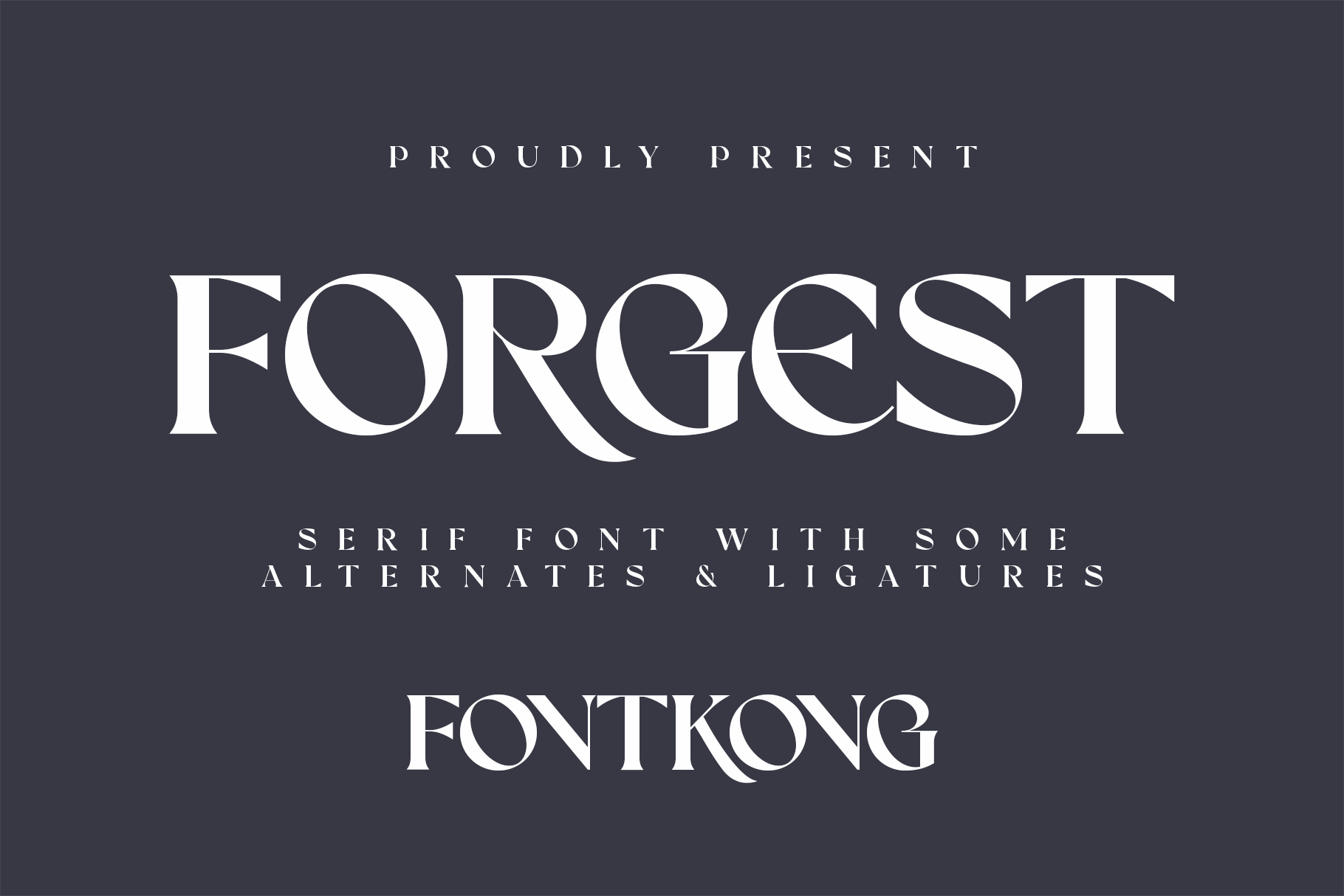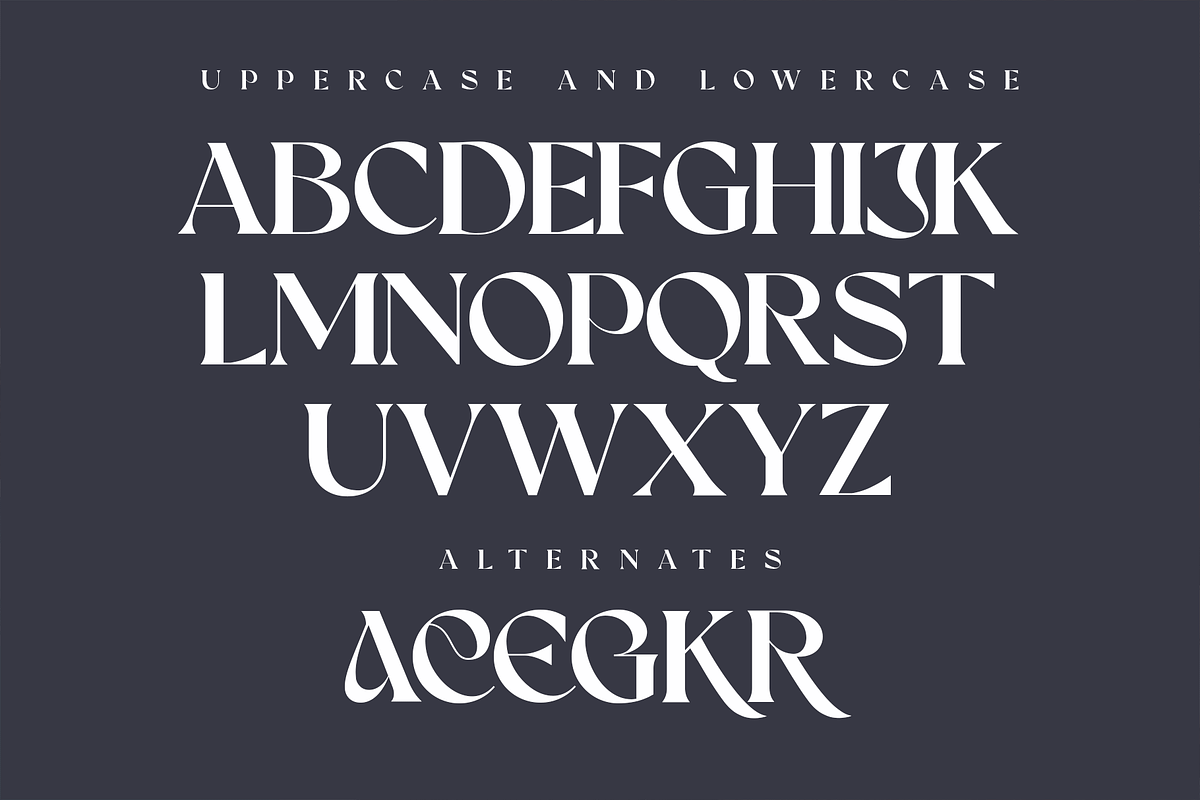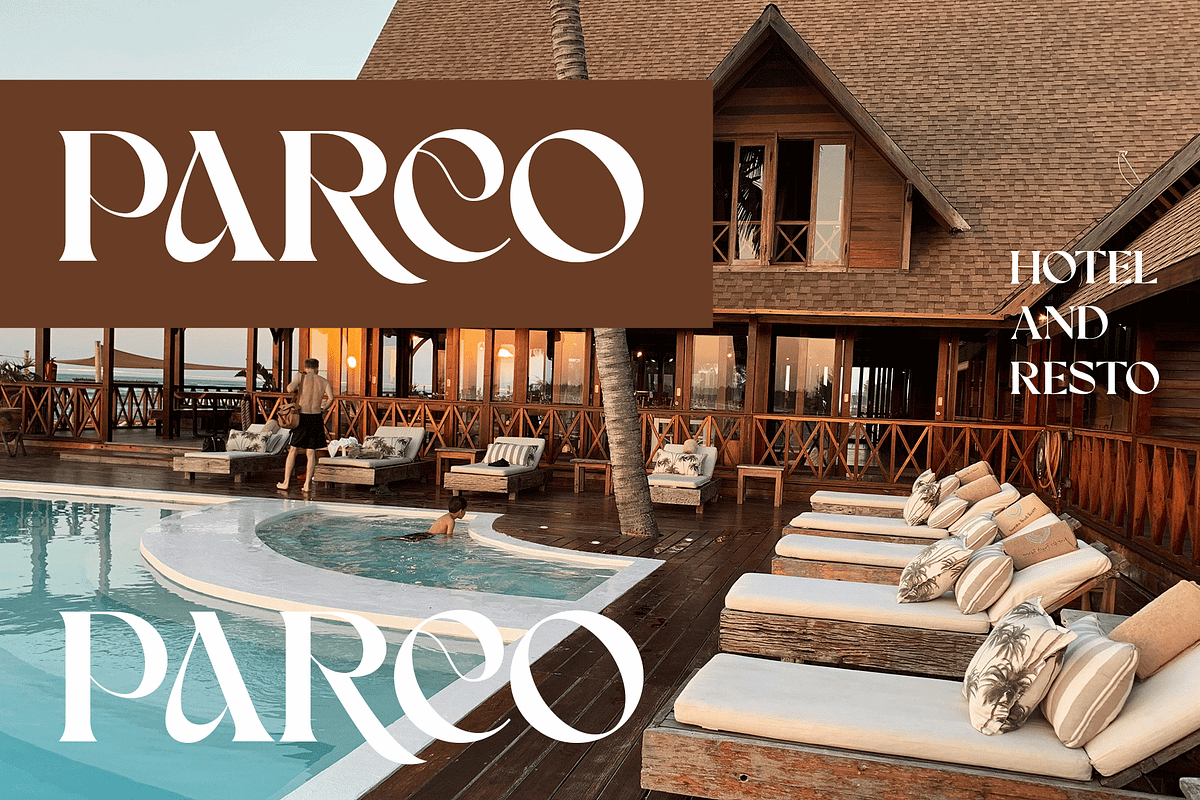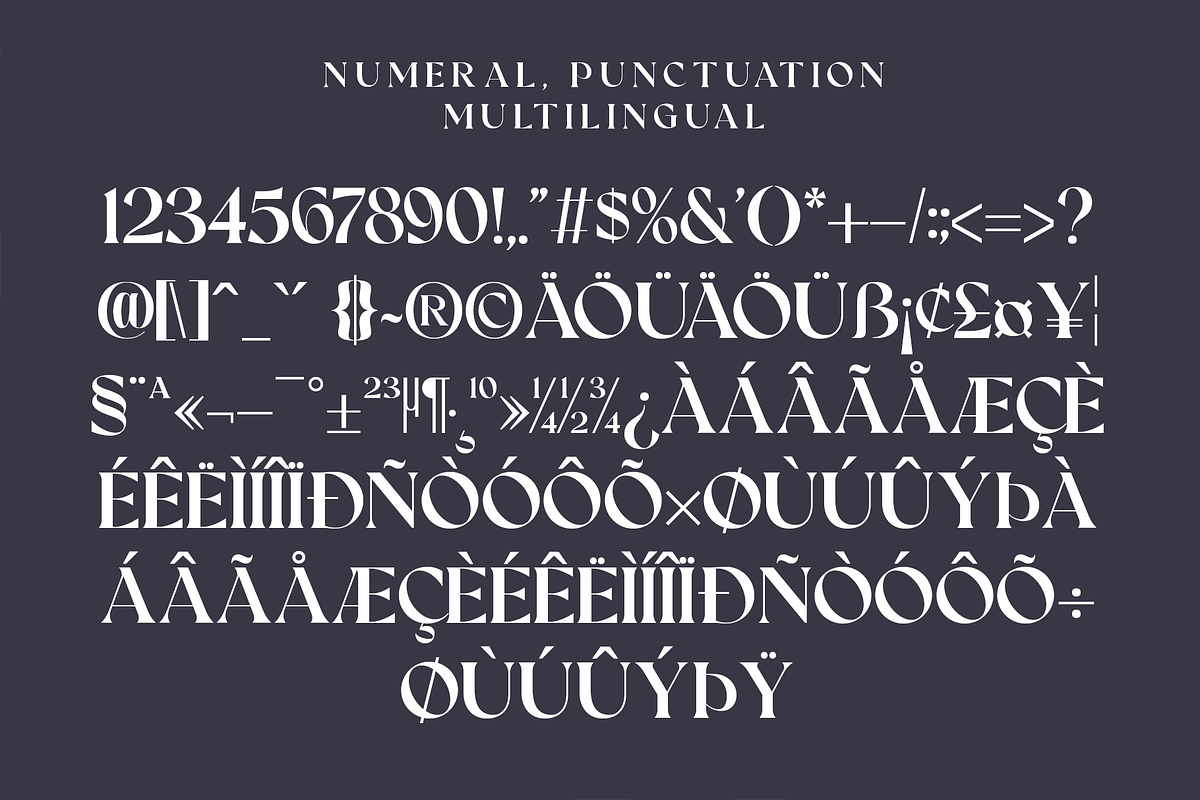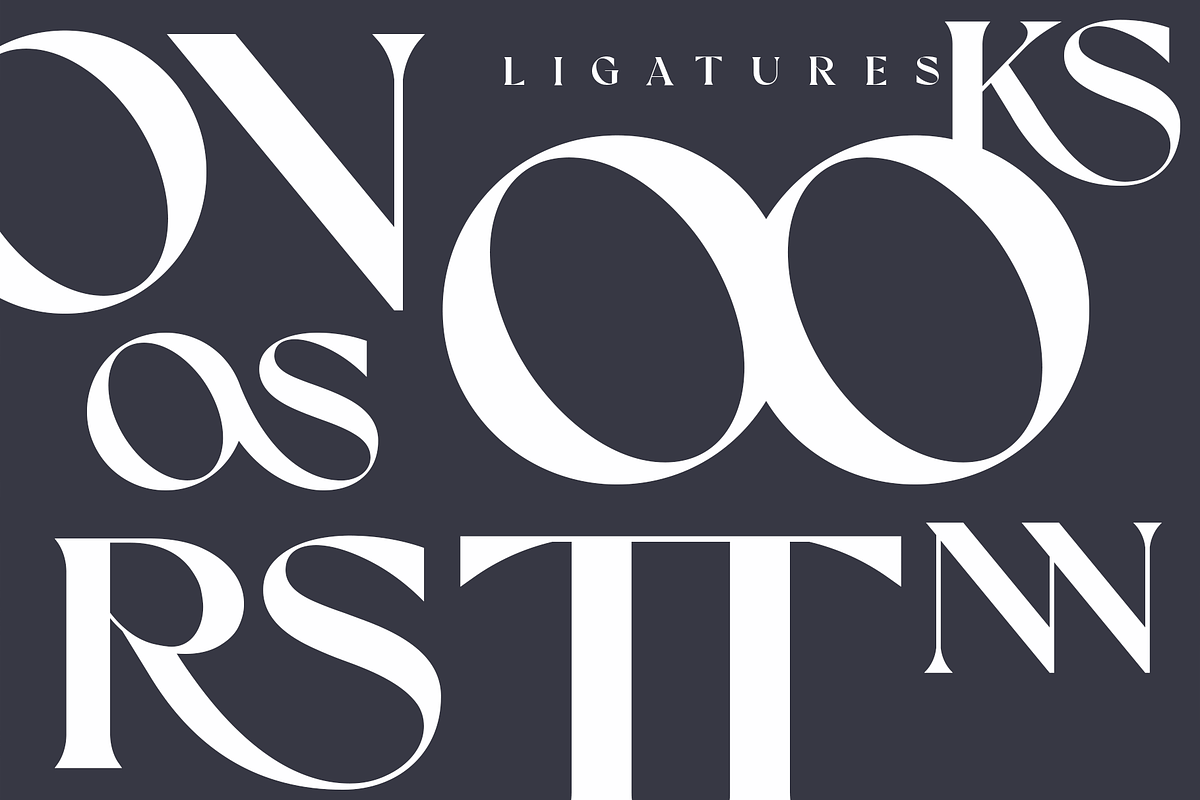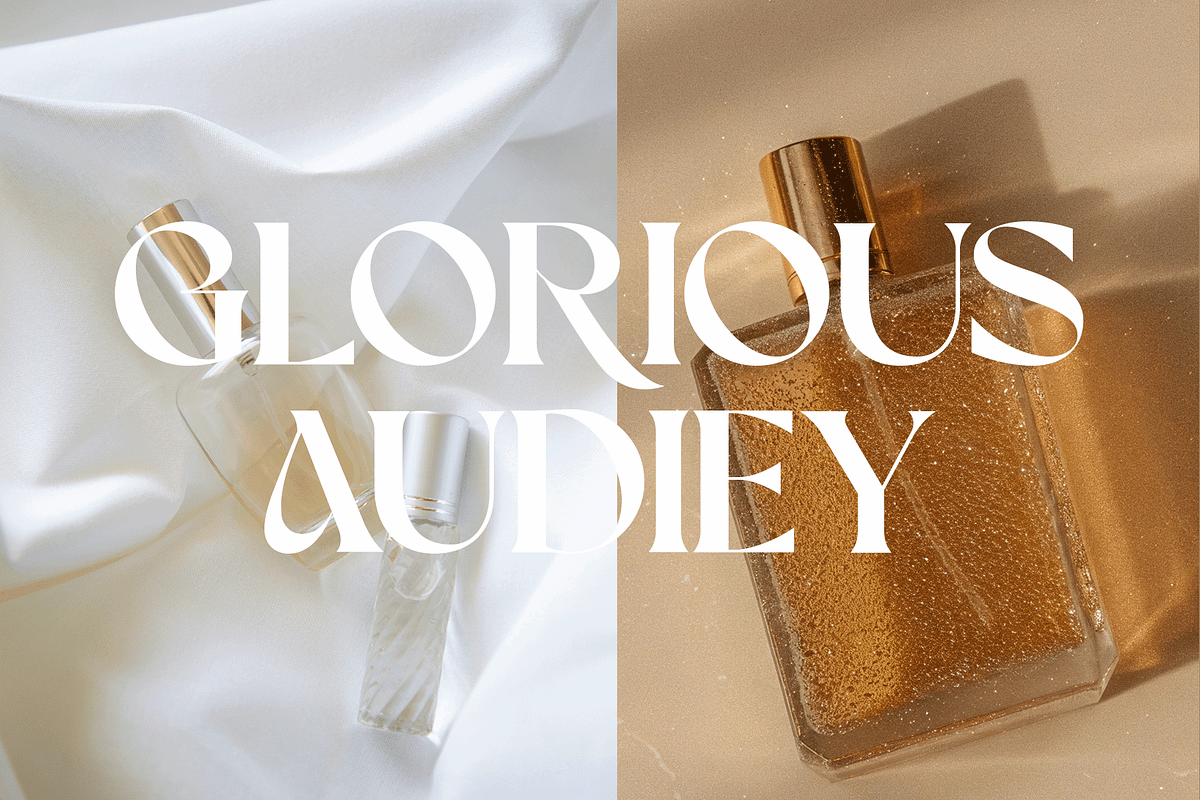
Forgest – Bold Serif Typeface
Introducing Forgest, a bold serif font designed to make a powerful impression. Forgest blends traditional serif aesthetics with a strong, contemporary edge, resulting in a typeface that is both timeless and modern. Its sturdy letterforms and refined details make it an excellent choice for designers seeking a bold, sophisticated presence in their work.
Ideal for branding, editorial layouts, logos, packaging, and signage, Forgest delivers both clarity and style. Each character is thoughtfully crafted to maintain balance and readability, even at large display sizes, while its distinctive serifs add a touch of elegance and authority.
Forgest includes uppercase and lowercase letters, numerals, punctuation, and multilingual support, ensuring versatility across various creative projects.